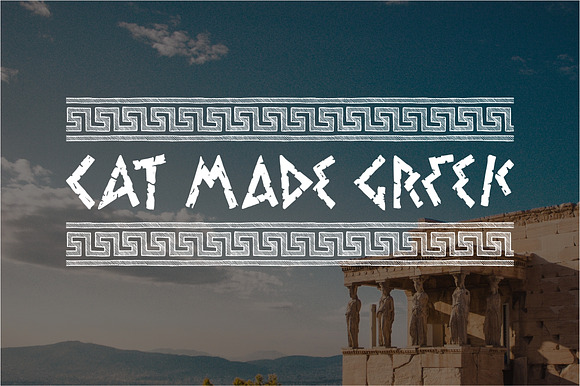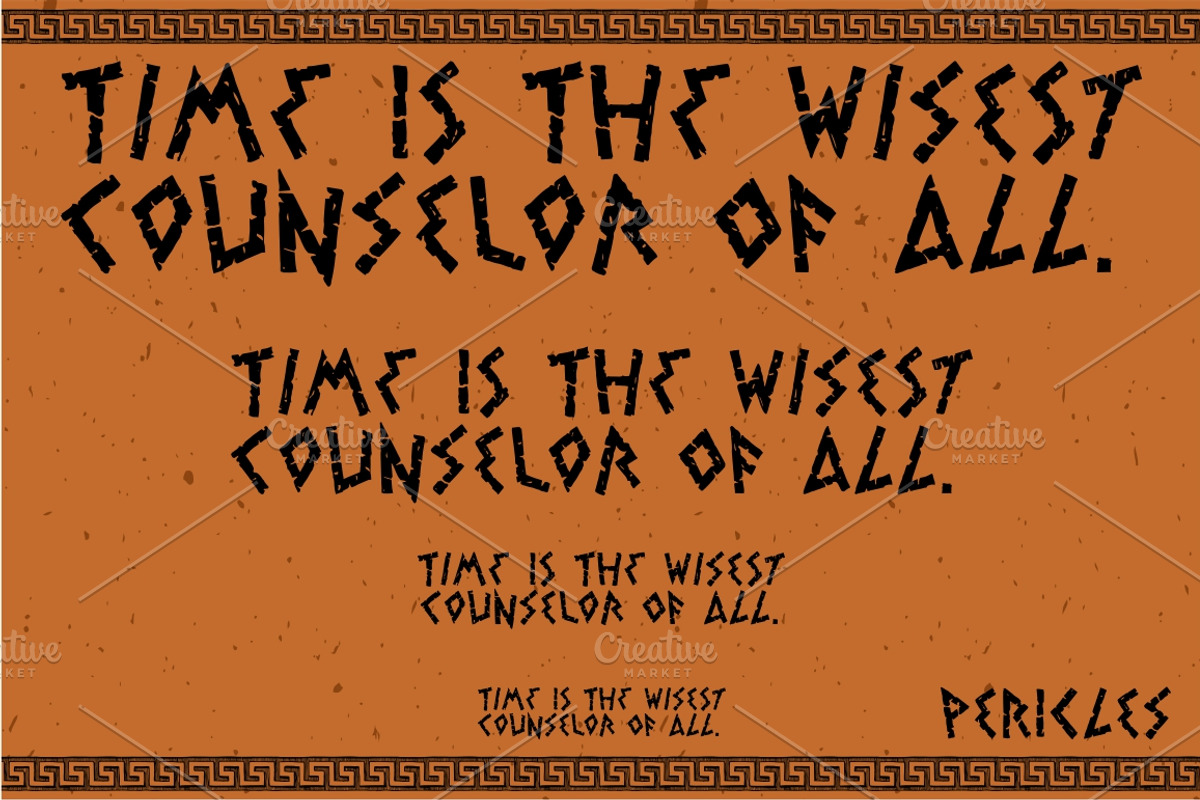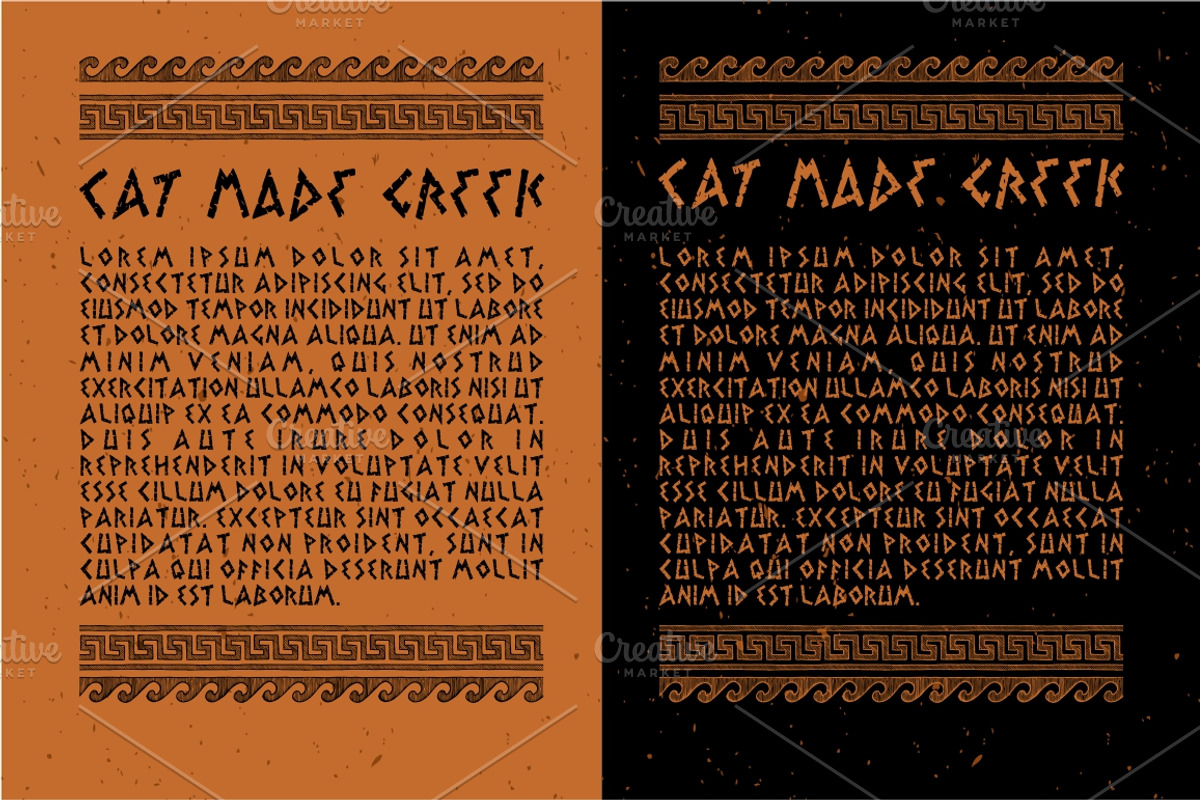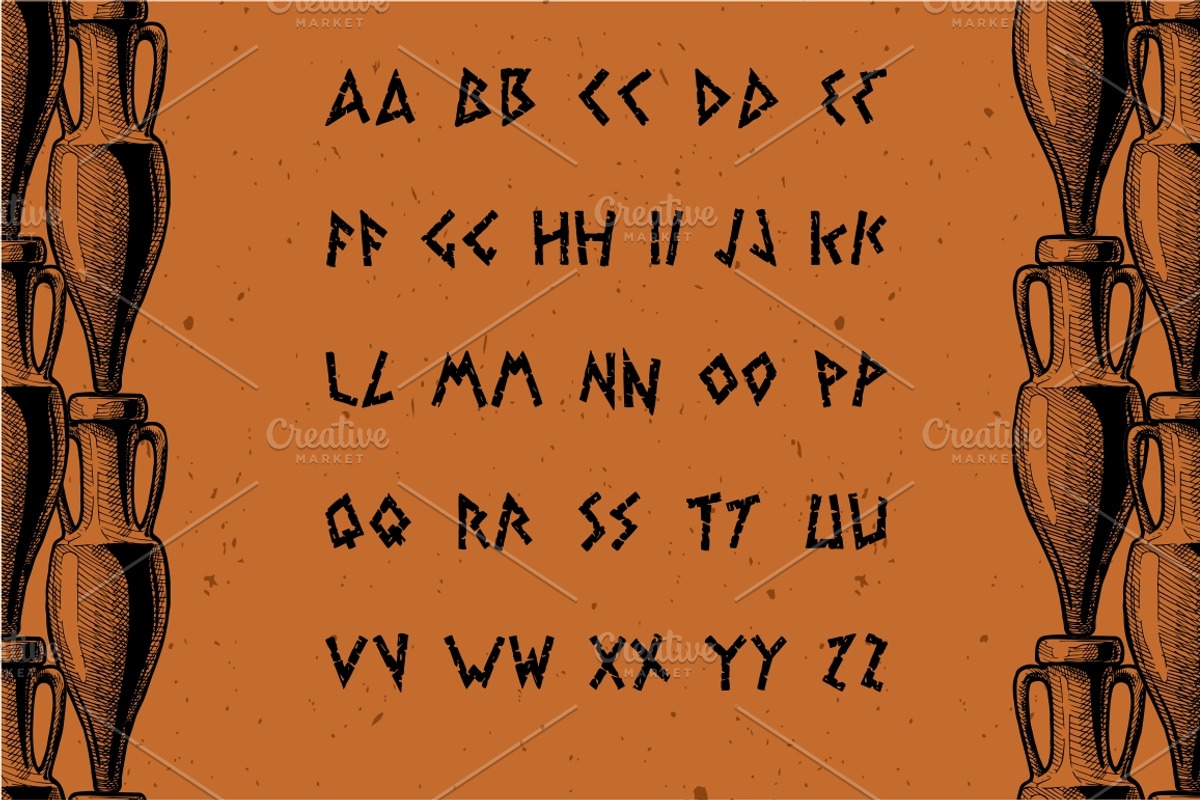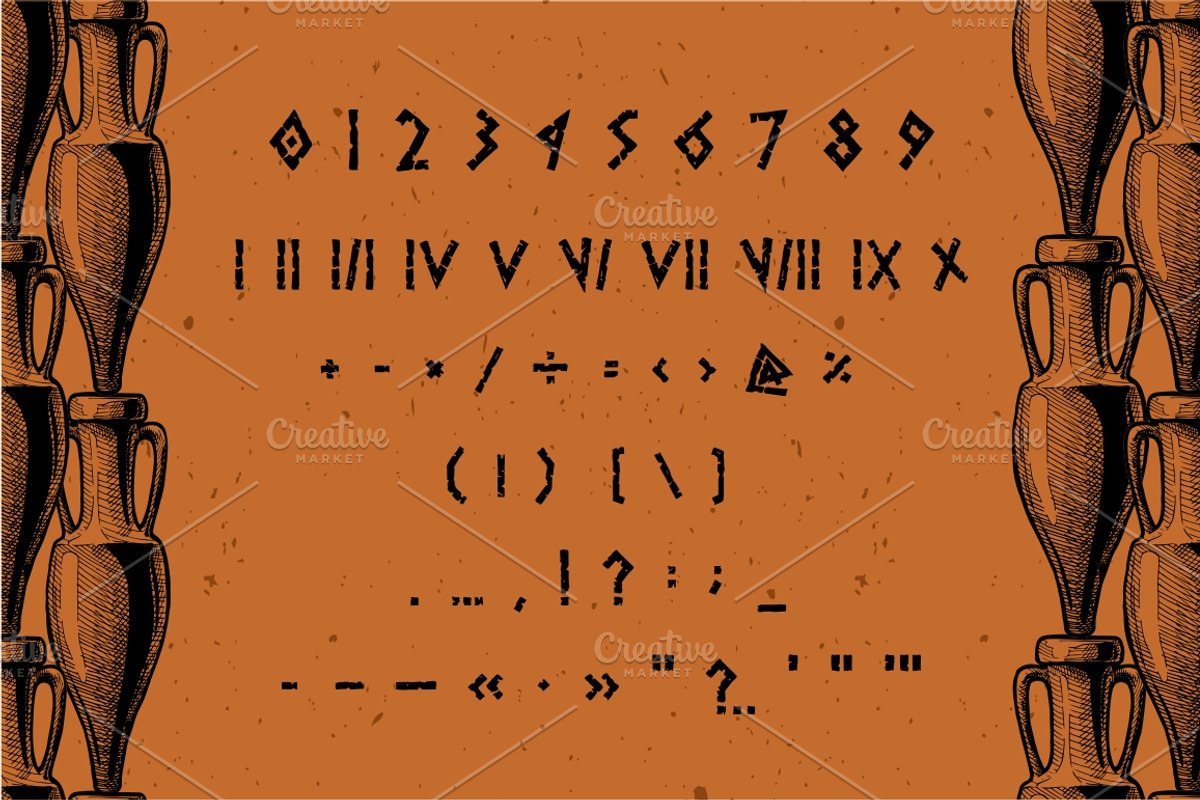
Greek font
Ancient Greek font. English alphabet, Punctuation marks, Roman and Arabic numerals, mathematical symbols.
Greek font by CatMadePattern fits naturally into Branding, posters, packaging, typography.